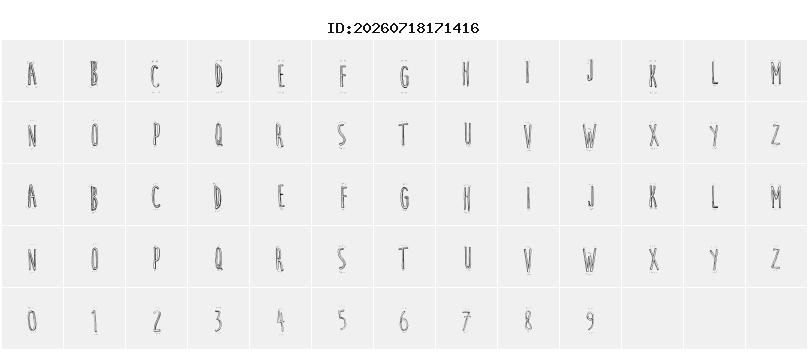
Cute Cartoon Preview
• Font Name: Cute Cartoon
• Full Font Name: Cute Cartoon
• Version: Version 1.00 December 24, 2014, initial release
• Designer: © Galdino Otten. 2013. All Rights Reserved
• Manufacturer: Galdino Otten
About Cute Cartoon.otf
Cute Cartoon.otf is a modern, elegant sans-serif font designed for ultimate readability and visual harmony. Perfect for branding, headlines, web design, and print materials.